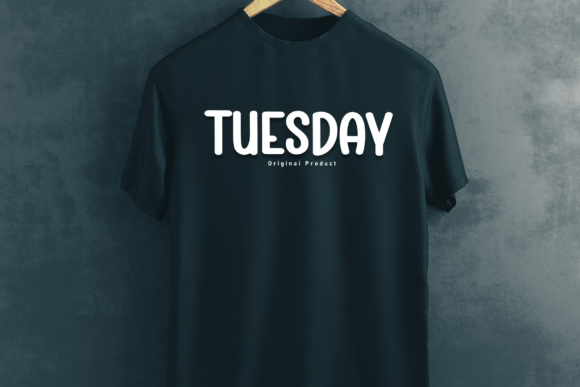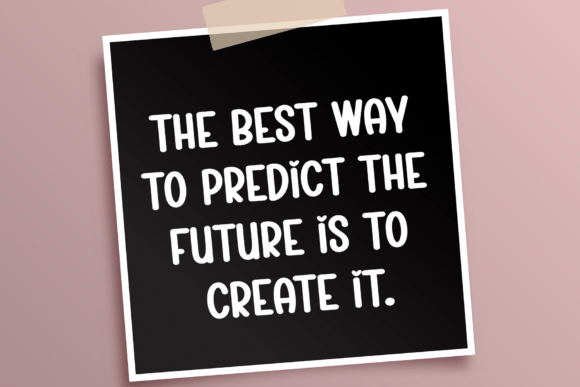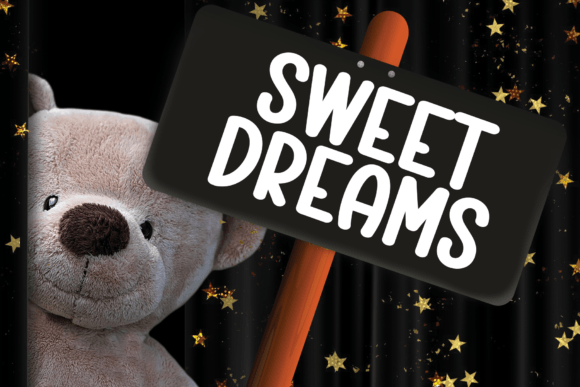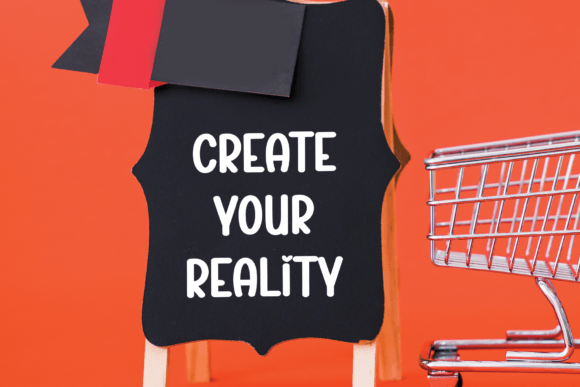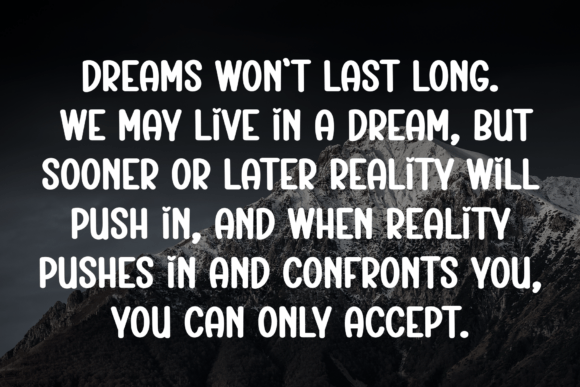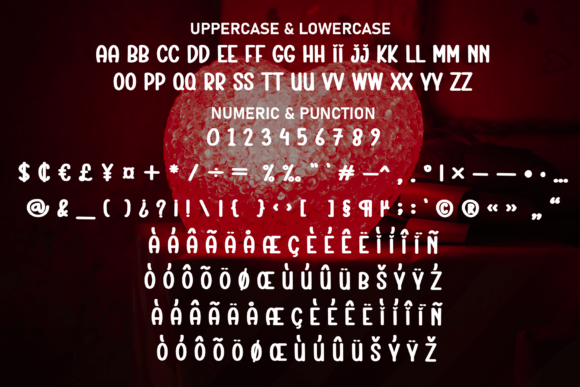
Introduction to Love Magical Font
Have you ever stared at a blank canvas, waiting for inspiration to strike? For designers, this moment is all too familiar. The blank page stares back, a daunting challenge to create something beautiful and meaningful. But what if you had the perfect tool to spark your creativity? Enter the Love Magical Font, a stunning handwritten display font that adds a touch of magic to any design project.
With its smooth, flowing design and unique, personal touch, the Love Magical Font is the perfect design resource for any creative project. Whether you’re working on a romantic wedding invitation, a heartfelt birthday card, or a whimsical art piece, this font adds a friendly and artistic vibe to your text. And the best part? It’s available for free download, making it a valuable asset for designers of all levels.
Key Features of Love Magical Font
- Unique and Whimsical Design: The Love Magical Font is designed with a touch of magic, perfect for creative projects that require a romantic and enchanting feel.
- Perfect for Creative Projects: The Love Magical Font is ideal for wedding invitations, greeting cards, and other creative projects that require a touch of romance and magic.
Honest Review: Love Magical Font
I recently came across the Love Magical Font, and I must say it’s a lovely addition to any design project. With a free download available, this font is perfect for creatives on a budget. The transparent background is also a plus, allowing for seamless integration into any design resource.
What works well for this font is its high quality and unique aesthetic. The font is perfect for adding a touch of whimsy to any creative project, from wedding invitations to blog headers.
The font comes in a variety of styles and weights, making it versatile and easy to use. Here are some of the key features:
- Unique and whimsical aesthetic
However, I did notice that the font can be a bit difficult to read in smaller sizes. ⚠️ This might be a limitation for some designers, but overall, I think the benefits of using this font far outweigh the drawbacks.
Overall, I’m really impressed with the Love Magical Font. It’s a great addition to any design resource, and I think it will be a valuable asset for many creatives. ✨
Tips for Getting the Most Out of Love Magical Font
To get the most out of the Love Magical Font, experiment with different font sizes, colors, and styles. You can also pair this font with other design elements, such as graphics and images, to create visually appealing designs.
The Love Magical Font is suitable for a wide range of creative projects, including wedding invitations, valentines day cards, and romantic quotes. Its elegant and romantic design makes it perfect for expressing love and affection in various contexts.